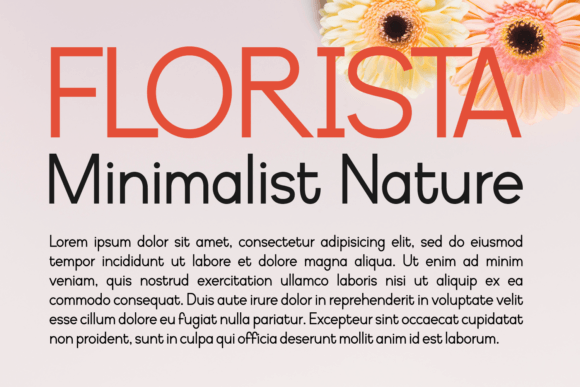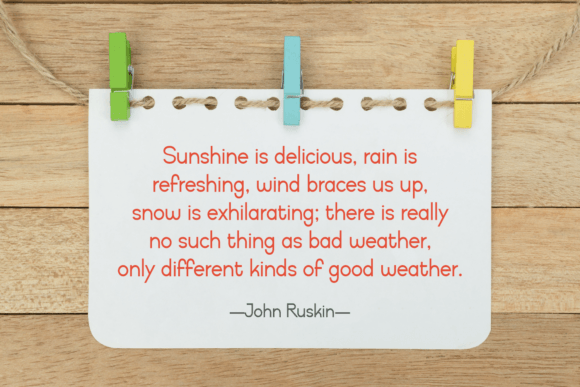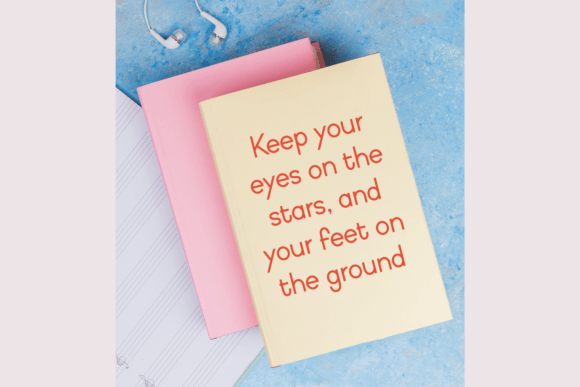
Introducing Darston Font: The Epitome of Modern Minimalism
In the realm of typography, fonts play a pivotal role in shaping the visual identity of a brand, product, or creative project. With the ever-evolving landscape of design, the demand for modern, versatile, and highly legible fonts has never been more pronounced. It is against this backdrop that Darston Font emerges as a beacon of innovation, embodying the essence of modern minimalism while pushing the boundaries of typographic excellence.
Design Characteristics of Darston Font
Darston is a modern, minimalist sans-serif font that is distinguished by its clean lines and balanced proportions. This design approach not only lends it a sleek and versatile aesthetic but also makes it an invaluable asset for a wide array of applications, ranging from branding and logos to headlines and web design. The font’s contemporary feel is meticulously crafted to deliver not just readability, but an undeniable air of elegance, making it the perfect choice for both professional and creative projects.
Versatility and Application
One of the standout features of Darston Font is its incredible versatility. Its design is carefully considered to ensure that it can adapt seamlessly across various mediums and applications. Whether it’s used for:
• Branding: Darston helps in creating a strong, modern visual identity that resonates with contemporary audiences.
• Logos: Its clean and minimalist design makes it ideal for logos that require a sleek, impactful presence.
• Headlines: Darston’s elegant and readable design ensures that headlines stand out with clarity and sophistication.
• Web Design: The font’s legibility on digital screens makes it a top choice for web designers looking to create a seamless user experience.
The Benefits of Using Darston Font
The decision to use Darston Font in a project comes with a multitude of benefits, including:
• Enhanced Readability: Darston’s design prioritizes readability, ensuring that content is easily digestible across various platforms.
• Elegance and Sophistication: The font adds a touch of elegance, elevating the visual appeal of any project.
• Flexibility: Its versatility means it can be used in a myriad of contexts, from digital interfaces to print materials.
• Contemporary Aesthetic: Darston’s modern design ensures that projects have a contemporary look and feel, making them instantly more engaging.
Who Can Benefit from Darston Font?
Darston Font is a valuable resource for a broad spectrum of professionals and creatives, including:
• Graphic Designers: Looking for a modern sans-serif font that offers both style and substance.
• Web Designers: Seeking fonts that are optimized for digital use, providing a superior user experience.
• Brand Strategists: Needing a font that can help articulate a brand’s modern and minimalist ethos.
• Digital Artists and Crafters: Exploring new typography options to enhance their digital art and crafting projects.
Darston Font stands at the forefront of typographic innovation, offering a perfect blend of modern minimalism, versatility, and readability. Its wide range of applications, from professional branding to creative projects, underscores its utility as a premier font choice. For designers, crafters, and brand strategists looking to make a lasting impression with their typography, Darston Font is an indispensable tool that promises to elevate any project to new heights of aesthetic and functional excellence.